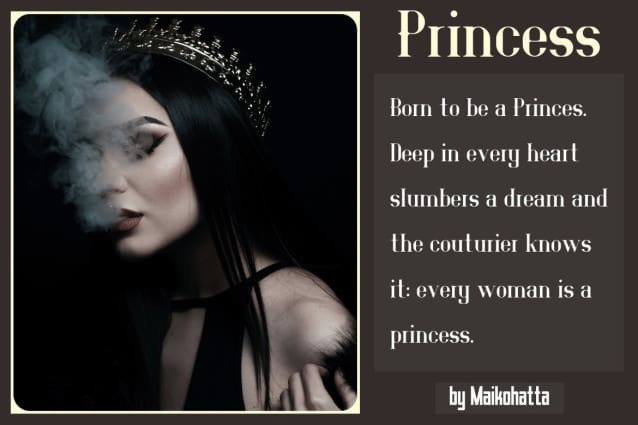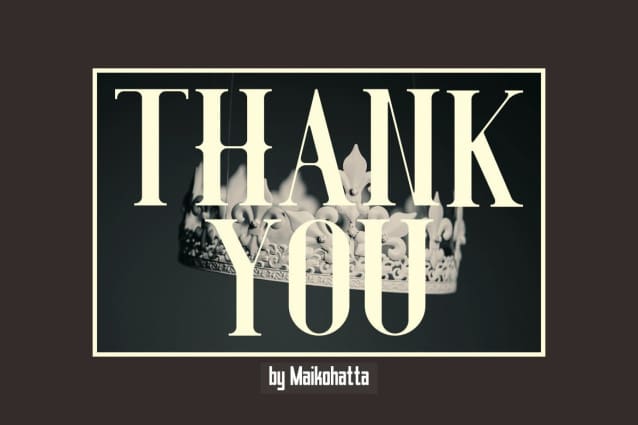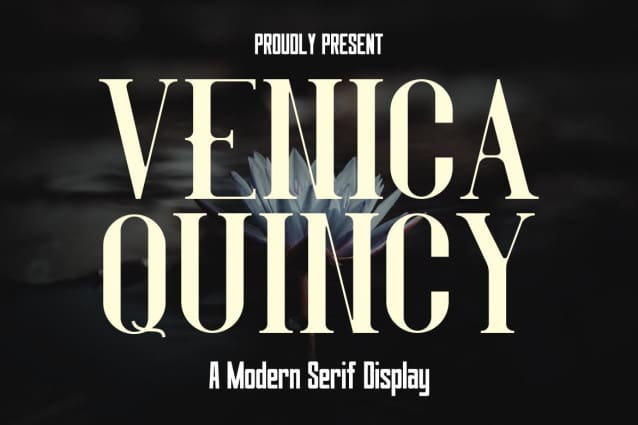
Venica Quincy Font
Venica Quincy Font – Modern Serif Display – is a very flexible choice and can be used in a variety of design contexts. Its ability to provide a clean, professional, contemporary look and its simplicity and visual appeal make this font good for use in the world of graphic design and modern typography.